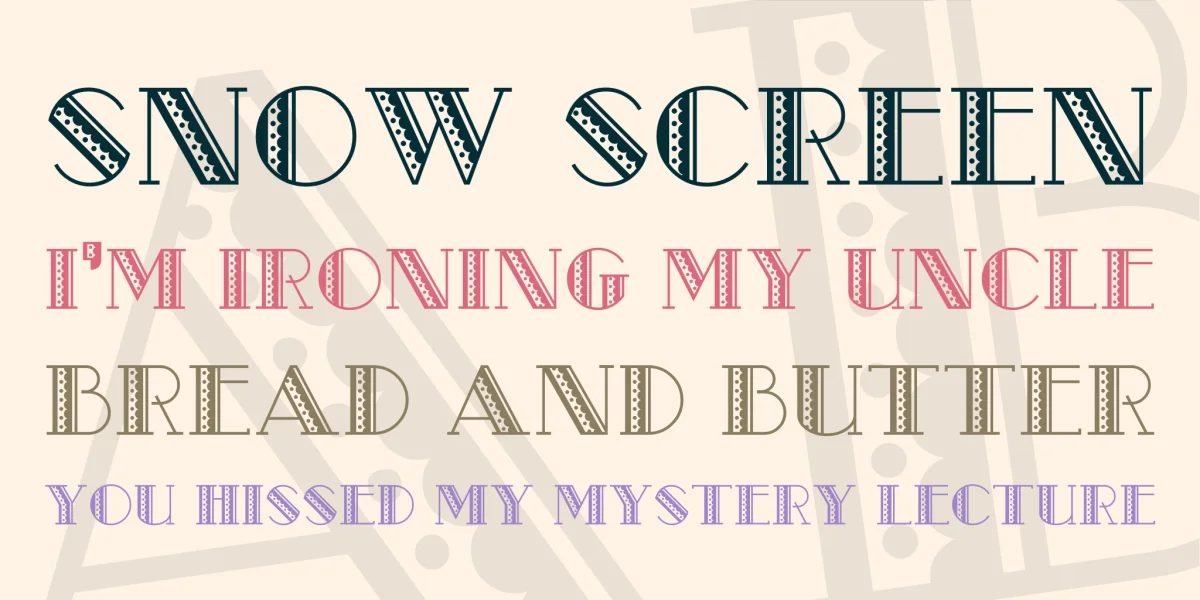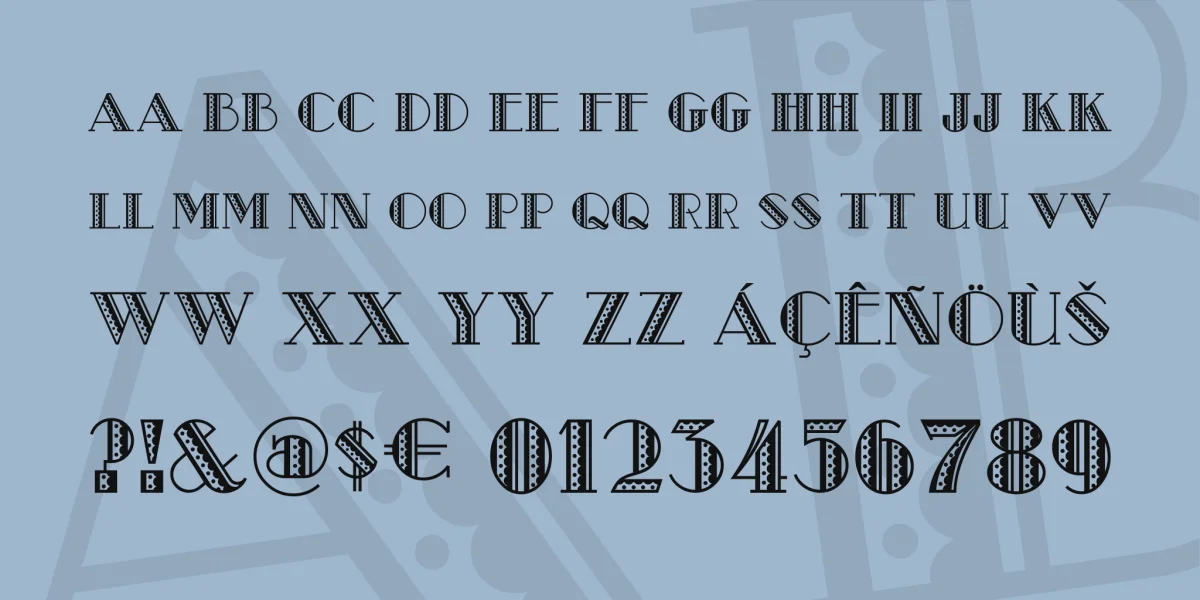
Designed by Wadsworth A. Parker for ATF (that’s American Type Founders, not Alcohol, Tobacco and Firearms) in 1927, this font was originally called Modernistic. Since it ain’t so no mo’, I gave it a new name more in line with its place in history. Suitable for short headlines in large point sizes, unless you really want to torture your readers. The freeware version is uppercase only; my commercial font, Metro Retro Redux has lowercase letters, as well as a complete Adobe character set.